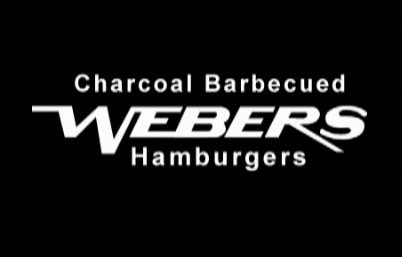
I'm designing a website that incorporates a company logo which has a few custom letters. Could anyone please name the base font this is made on? Also, how would I go about incorporating these custom letters into a font?
The sub text is Helvetica (not Arial)
It's a pretty old brand (little research shows that logo in the 1970s) That would predate "fonts" It's most likely a one of a kind hand lettered type developed specifically for that logo. It's probably been cleaned up a bit digitally over the years though.